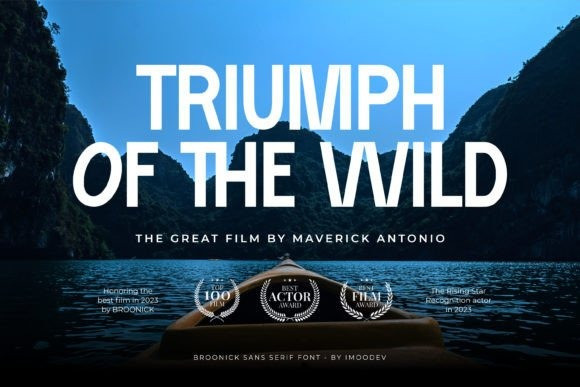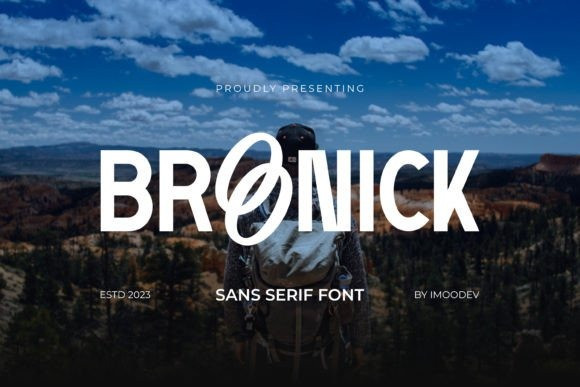
Broonick Font
Broonick Font is a modern and stylish sans serif font. With its unique yet versatile look, this font will work in a great variety of contexts.